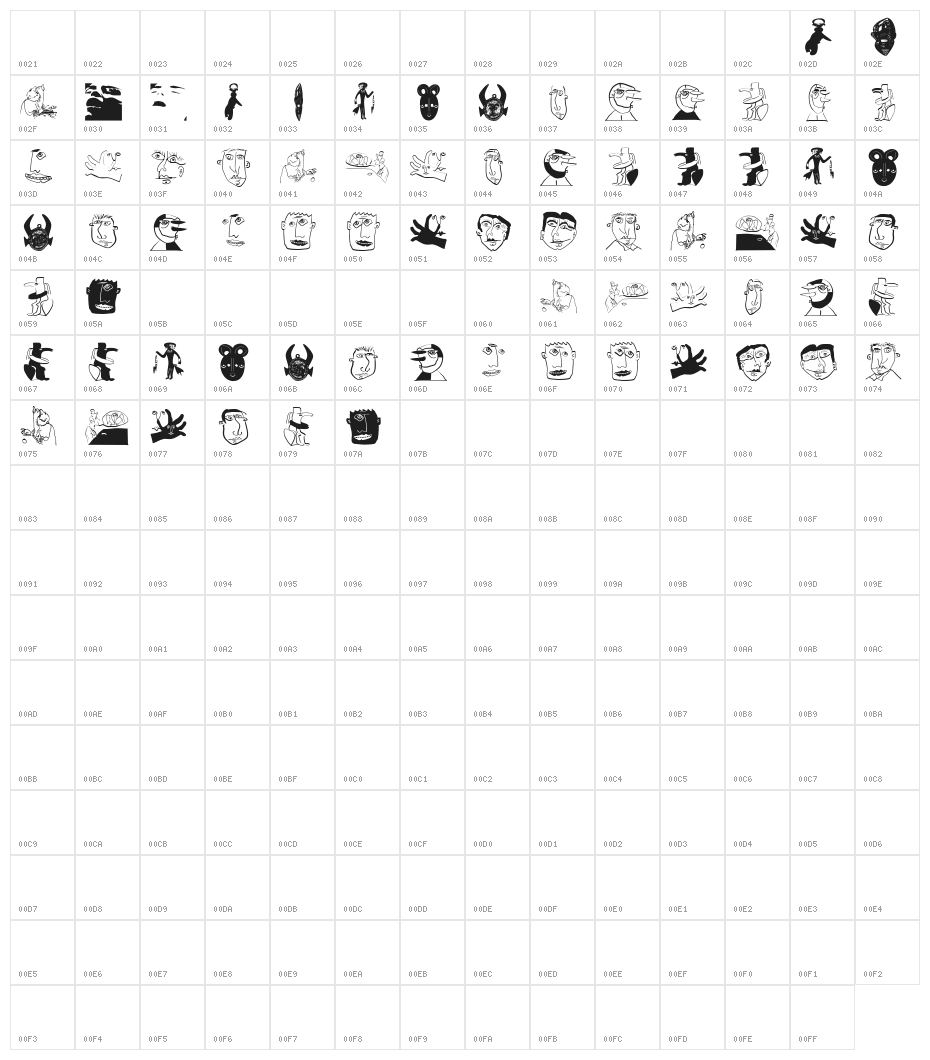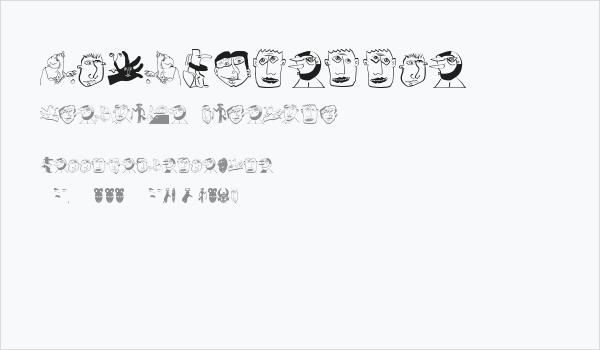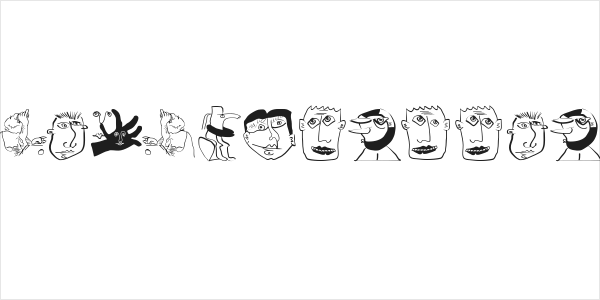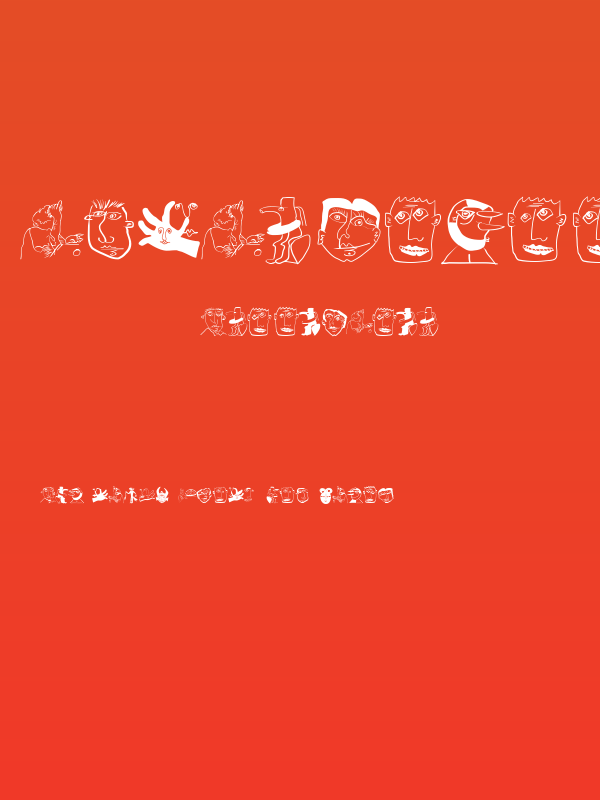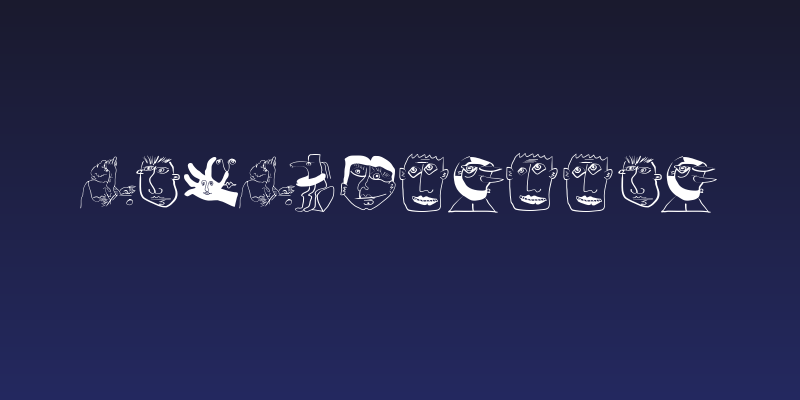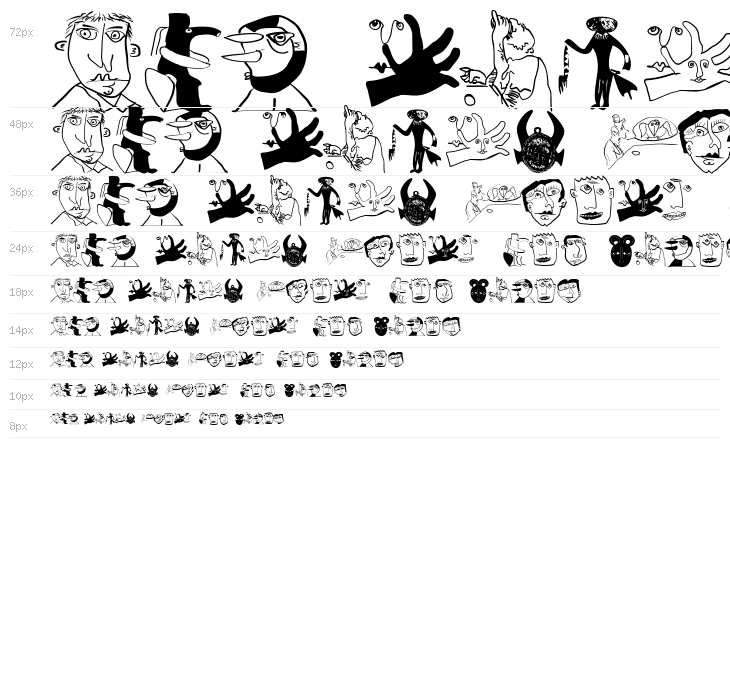
AlwaysPeople Font
| Caso d'uso | Logos, Headlines, Artistic projects |
| Progetti proposti | Ideal for creative branding, art installations, unique poster designs, and any project needing a distinctive visual style. |